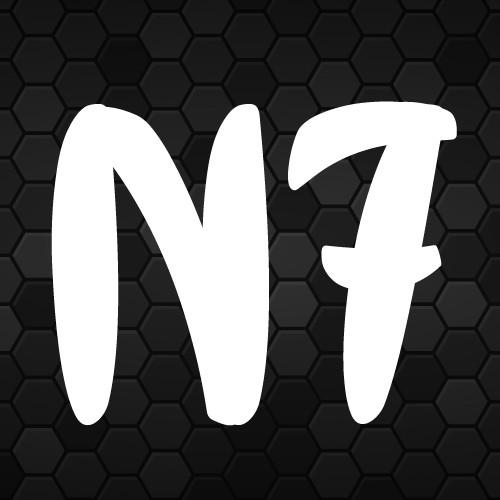
Lemon Juice Font Description
Lemon Juice is a cute and playful display font that you can be used for greeting cards, event invitations, quotes, fashion, magazines, and more. Whether you’re using it for crafts, digital design, presentations, or making greeting cards, this font has the potential to become your favorite go-to font, no matter the occasion!